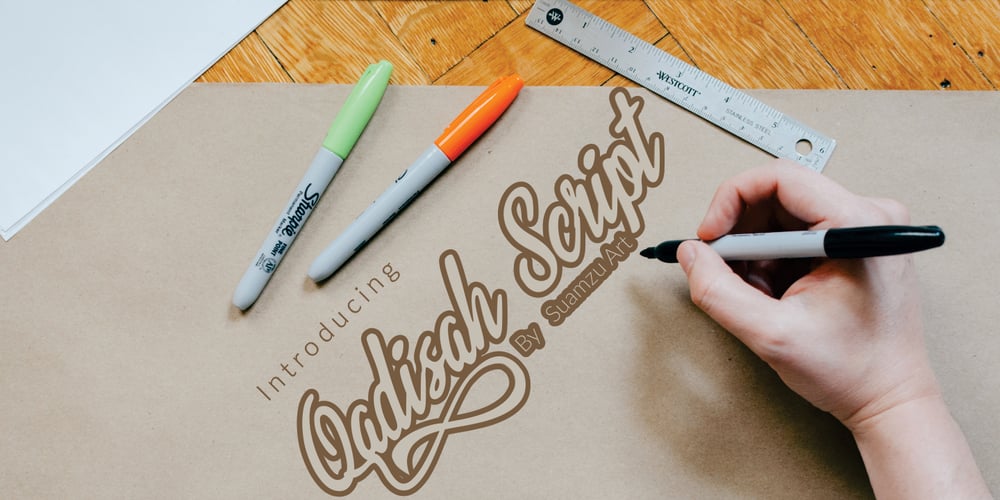
Qadisah Script Font Family was designed by Amrullah Medan, Amrullah, Suherman Tanjung and published by Suamzu Art. Qadisah Script contains 1 styles and family package options. Qadisah feels equally charming and elegant. It looks stunning on wedding invitations, thank you cards, quotes, greeting cards, logos, business cards and every other design which needs a handwritten touch.This font is PUA encoded which means you can access all of the glyphs and swashes with ease! It features a varying baseline, smooth lines, gorgeous glyphs and stunning alternates